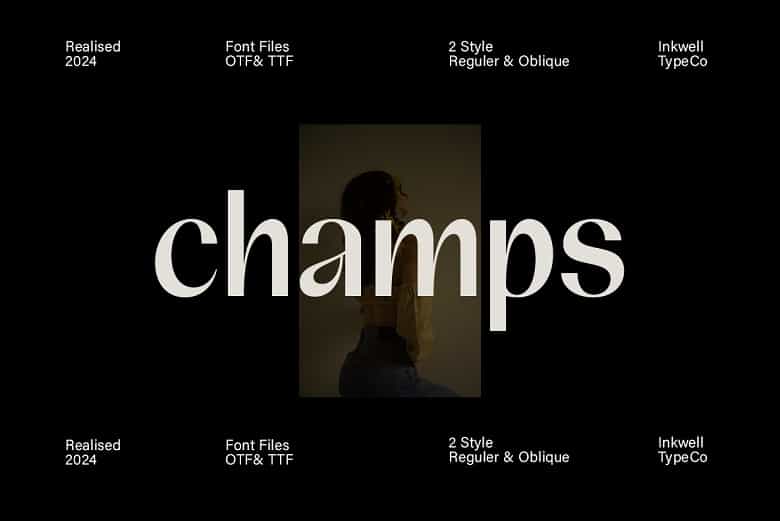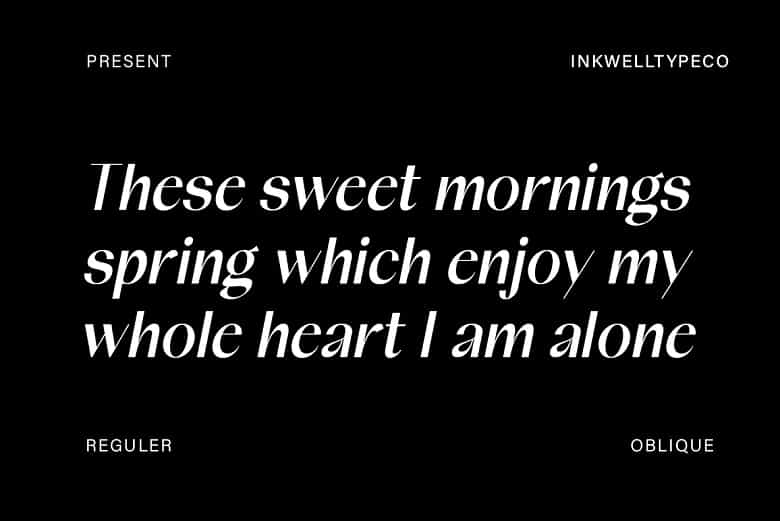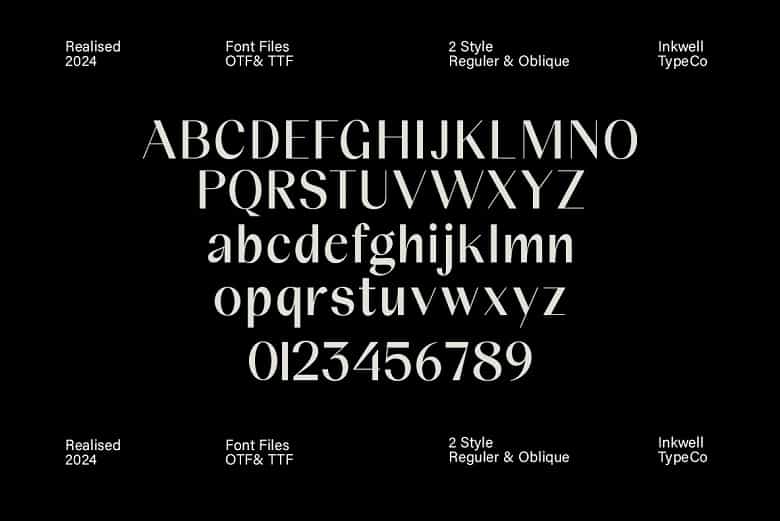
Champs is an unique modern sans serif fonts suitable for the use in visuals. This font has a very contemporary and classy look with no sharp corners and very slight roundness. Suitable for logos and posters, it is both clear and distinctive at the same time.